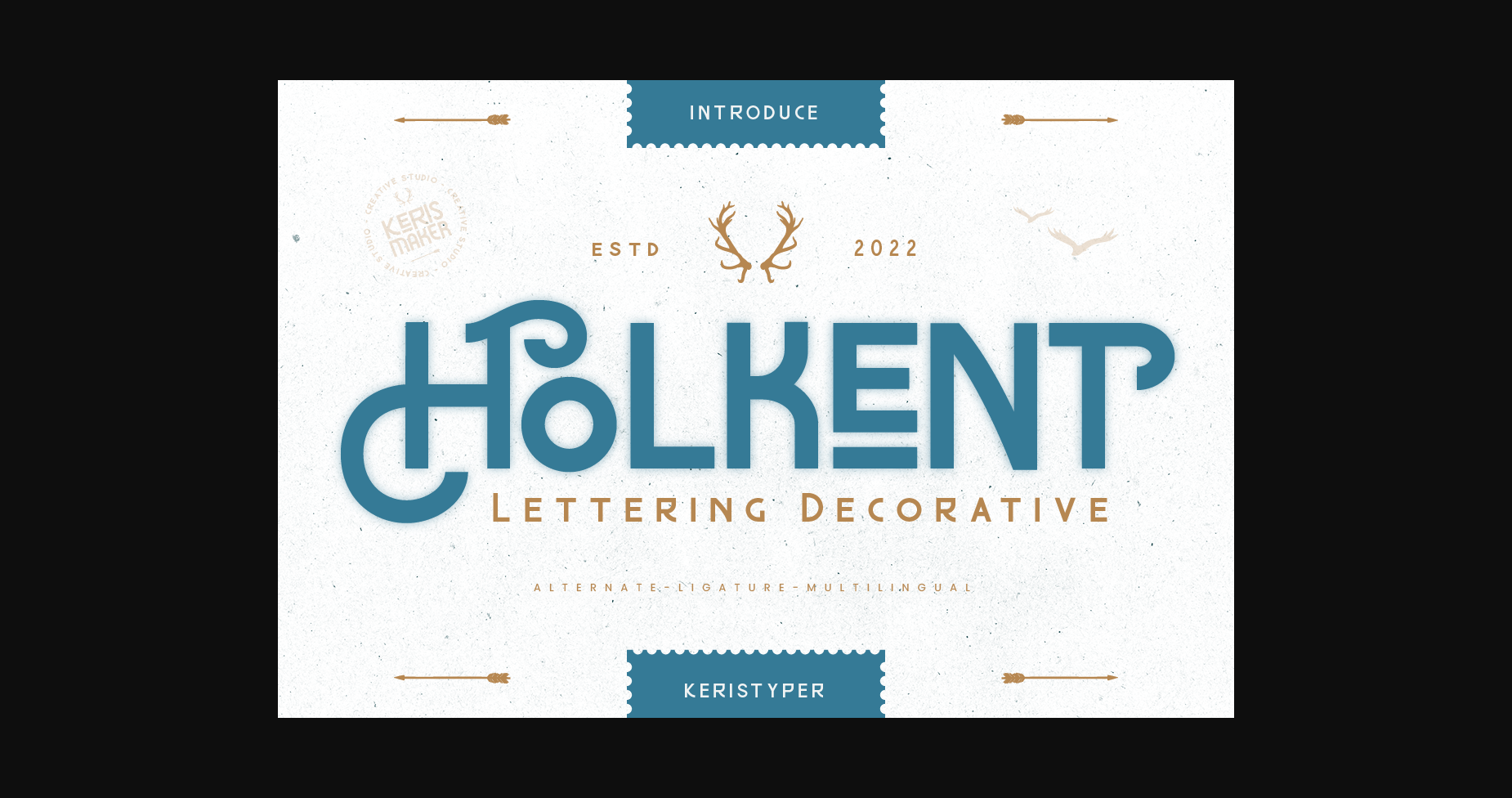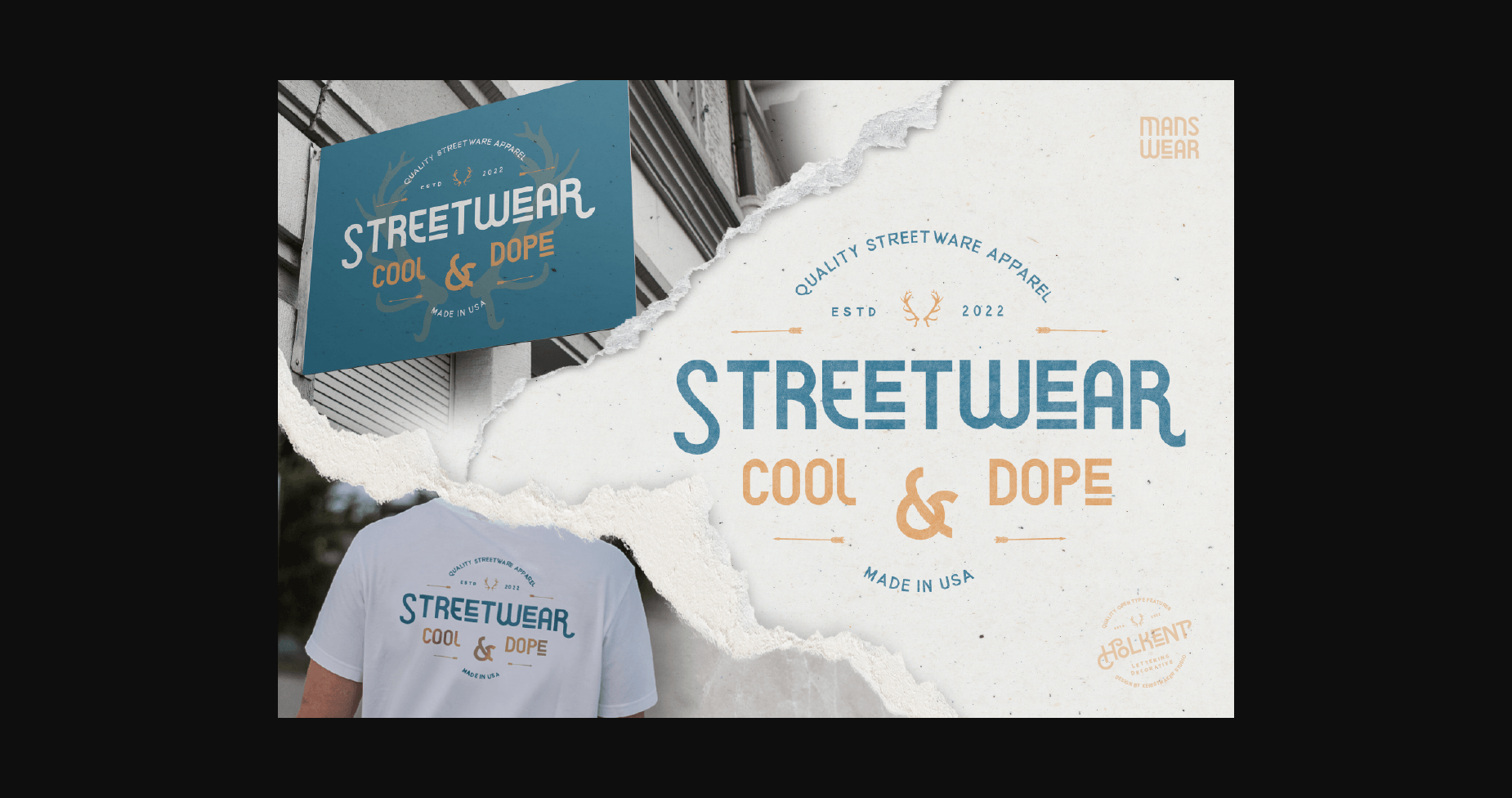
About Holkent Font
Holkent is a modern and cool sans serif font. Fall in love with its incredibly versatile style and use it to create gorgeous wedding invitations, beautiful stationary art, eye-catching social media posts, and much more!